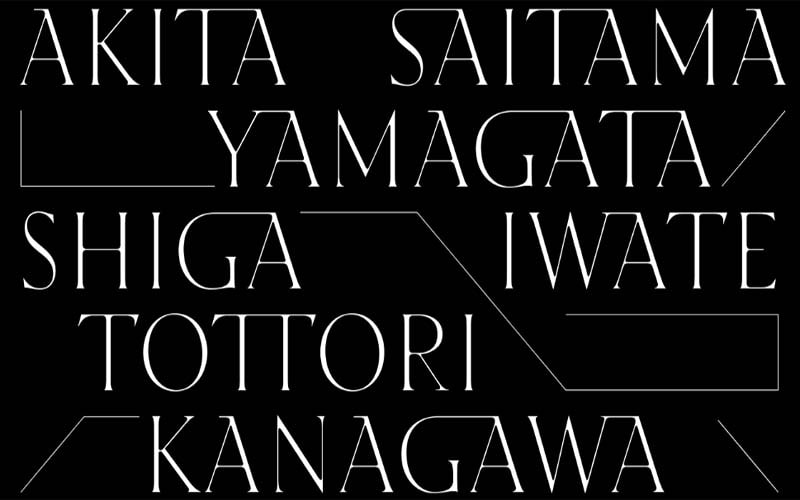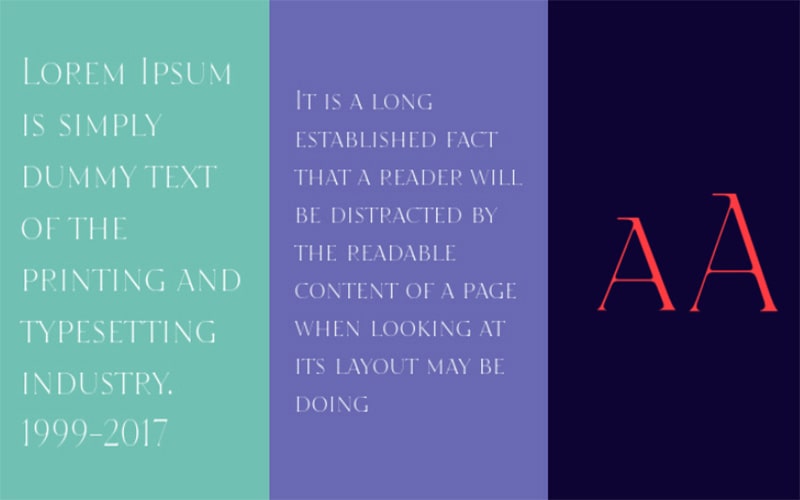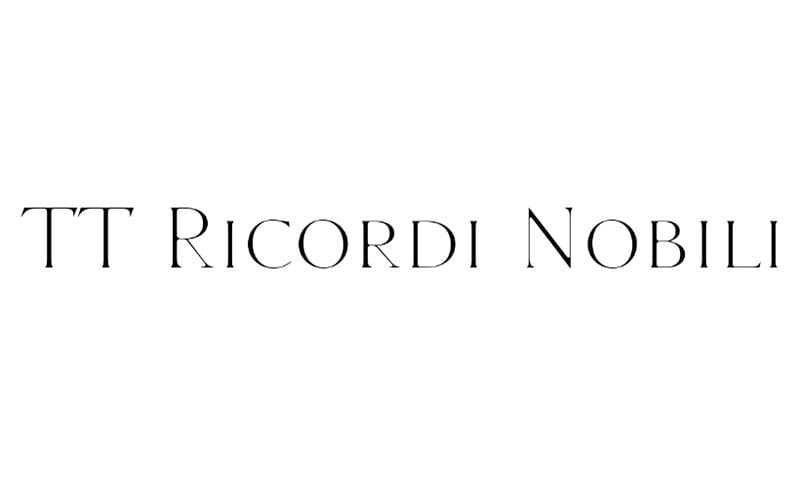
TT Ricordi Nobili Font is a great display and serif typeface. It looks more attractive and stylish due to its clean, thin, and clear texture.
This amazing font was designed by Yulia Gonina, Marina Khodak, and Anna Tikhonova and published by TypeType Foundry to create a professional look for your projects.
The subfamily of this typeface is regular and contains 2 styles such as “TT Ricordi Nobili Regular”, and “TT Ricordi Nobili Bold” font styles.
A high-quality free version font contains 750 strong characters including 26 uppercase and lowercase letters, punctuations, and numbers. Let’s take a look at its beautiful texture.
TT Ricordi Nobili Font
| Font Name: | TT Ricordi Nobili Font |
| Style: | Display, Serif, Typeface |
| Font Designer: | Yulia Gonina, Marina Khodak, Anna Tikhonova |